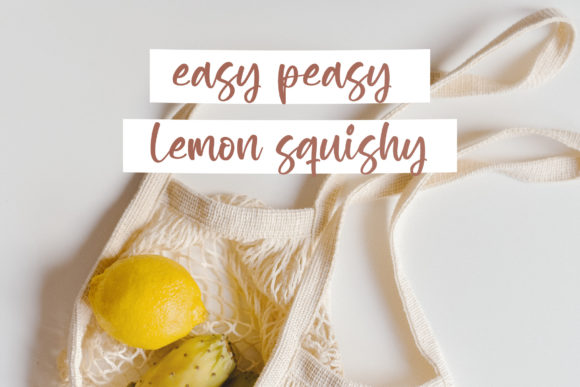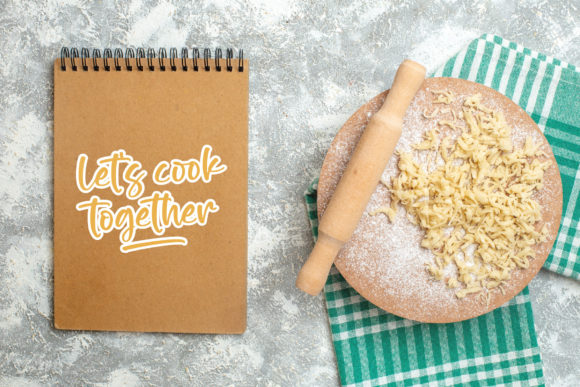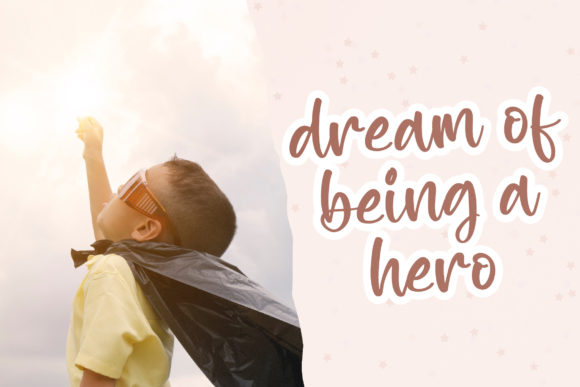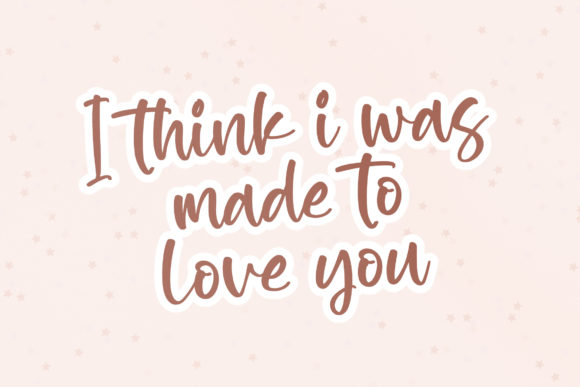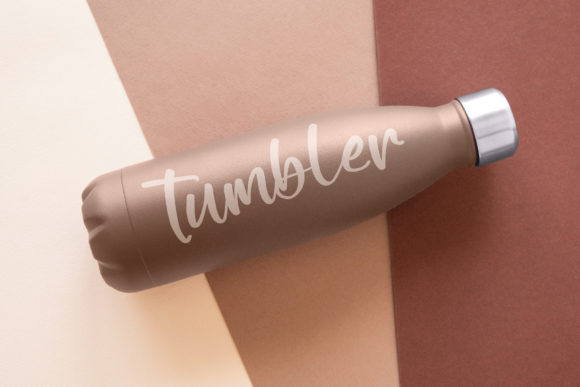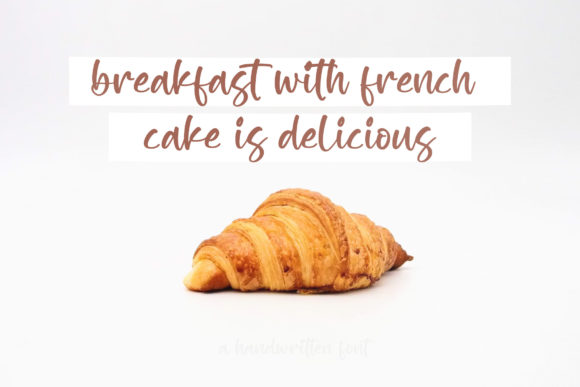
Dreams Imagine Font: The Perfect Handwritten Font for Creative Projects
Are you a designer or crafter looking for a unique and playful font to add a personal touch to your projects? Look no further than the Dreams Imagine Font! This sweet, fun, and quirky handwritten font is perfect for a variety of creative endeavors, from product packaging and branding projects to magazine covers, social media, and wedding designs.
What Makes Dreams Imagine Font So Special?
Dreams Imagine Font is a one-of-a-kind handwritten font that is sure to capture the attention of your audience. Its playful and whimsical design makes it perfect for projects that require a touch of personality and charm. The font is highly versatile and can be used for a wide range of applications, including:
- Product packaging: Add a personal touch to your product packaging with the Dreams Imagine Font. Its unique design will help your products stand out on store shelves and make them more memorable to customers.
- Branding projects: Use the Dreams Imagine Font to create a cohesive brand identity that reflects your company’s personality and values.
- Magazine covers: Create eye-catching magazine covers that grab the attention of readers with the Dreams Imagine Font.
- Social media: Add a touch of personality to your social media posts with the Dreams Imagine Font. Its playful design is sure to make your posts stand out in crowded feeds.
- Wedding designs: Use the Dreams Imagine Font to create beautiful and unique wedding designs, including invitations, programs, and decorations.
Key Features of Dreams Imagine Font
The Dreams Imagine Font has several key features that make it a must-have for designers and crafters. Some of its notable features include:
- Handwritten design: The Dreams Imagine Font has a unique handwritten design that gives it a personal and playful touch.
- Quirky and fun: The font’s quirky and fun design makes it perfect for projects that require a touch of personality and whimsy.
- Highly versatile: The Dreams Imagine Font can be used for a wide range of applications, from product packaging to wedding designs.
- Easily readable: Despite its playful design, the Dreams Imagine Font is easily readable, making it perfect for use in a variety of contexts.
Tips for Using Dreams Imagine Font
Here are a few tips for using the Dreams Imagine Font in your projects:
- Use it sparingly: While the Dreams Imagine Font is perfect for adding a touch of personality to your projects, it’s best to use it sparingly. Use it as an accent font to add visual interest to your designs.
- Pair it with other fonts: The Dreams Imagine Font pairs well with other fonts, including serif and sans-serif fonts. Experiment with different font combinations to find the perfect look for your project.
- Experiment with colors: The Dreams Imagine Font looks great in a variety of colors. Experiment with different colors to find the perfect look for your project.
The Dreams Imagine Font is a unique and playful handwritten font that is perfect for designers and crafters looking to add a personal touch to their projects. Its quirky and fun design makes it perfect for a variety of creative endeavors, from product packaging to wedding designs. With its highly versatile design and easily readable text, the Dreams Imagine Font is a must-have for any designer or crafter looking to add a touch of personality to their work.